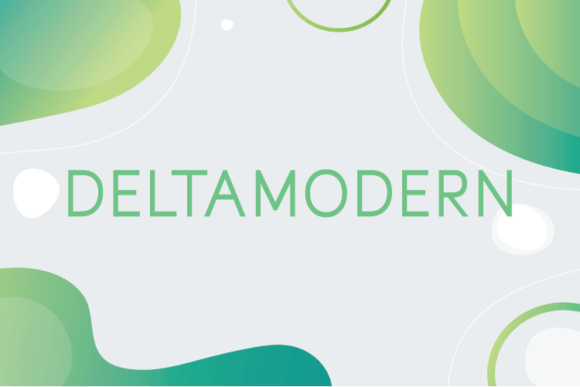
Meet Deltamodern, a stunning sans serif font that exudes modernity and class. Bold yet elegant, it embraces a distinguished style that makes it the perfect choice for creating striking logos, captivating wedding invitations, heartfelt quotes, eye-catching advertisements, vibrant prints, stylish magazines, and more. Embrace the boundless versatility of Deltamodern and make your creations radiate with individuality and sophistication.
Step into a world of visual elegance with Deltamodern. With its unique and striking presence, this font transforms your words into works of art. Its clean lines and meticulous curves evoke a sense of sophistication, while its modern flair adds a touch of allure to every project. Whether it's a personal or professional endeavor, Deltamodern effortlessly elevates your designs, making them stand out in the digital realm.
Unleash your creativity and let Deltamodern be your guide. Its versatility knows no bounds, accommodating various projects and styles. From sleek logos that command attention to charming wedding invitations that exude romance, Deltamodern seamlessly adapts to your vision. Create quotes that resonate with beauty, design advertisements that captivate audiences, and craft prints and magazines that leave a lasting impression.
With Deltamodern, the possibilities are limitless. Its delicate balance of strength and grace makes it the perfect font for fashion brands looking to convey a sense of luxury and timelessness. It's an ideal choice for travel agencies seeking to evoke wanderlust and adventure through their marketing materials. And for creative professionals seeking a distinctive identity, Deltamodern's modern aesthetic adds a touch of exclusivity to their work.
Step into the world of Deltamodern today and experience the transformative power of design. Its captivating presence and versatility will ignite your creativity and elevate your projects to new heights. Discover the endless possibilities that await you with Deltamodern and make your creations shine.